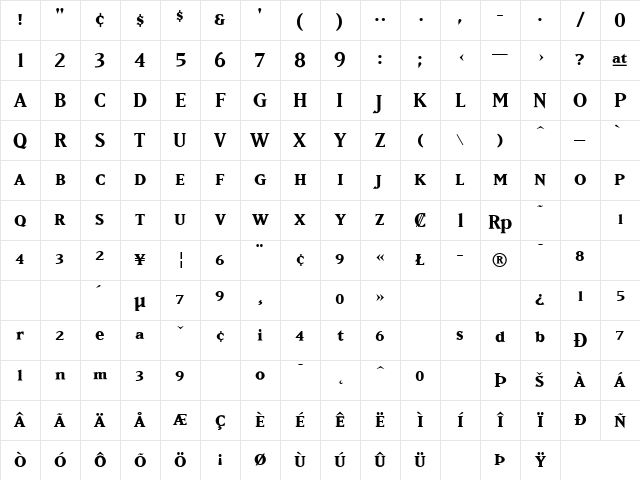
MatrixBoldSmallCaps Bold
Foundry: Copr. Emigre Graphics
Design Context for MatrixBoldSmallCaps
MatrixBoldSmallCaps is a composed and adaptable typeface that performs quietly and consistently across a wide range of design contexts. Its bold stroke weight gives it real presence on the page.